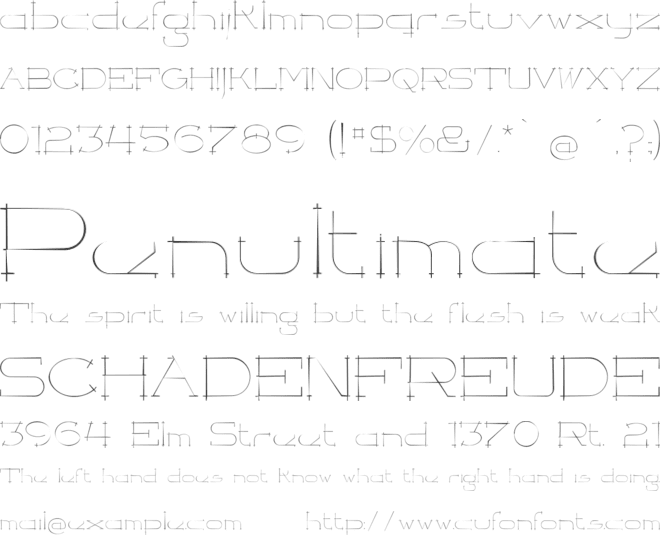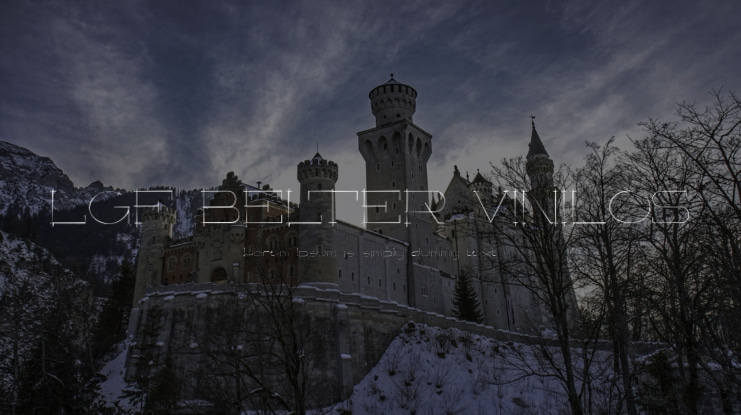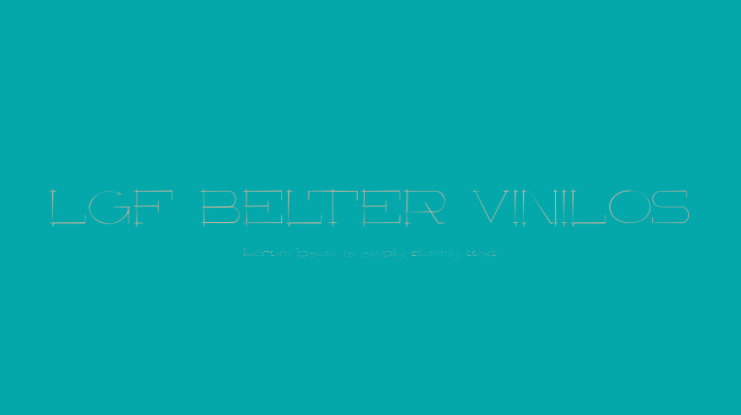
LGF BELTER VINILOS Font Family
The LGF BELTER font family is inspired by the BELTER MUSIC logo.
The family consists of two variants "DISCOS and VINILOS" and five different weights each (making a total of 10 font files).